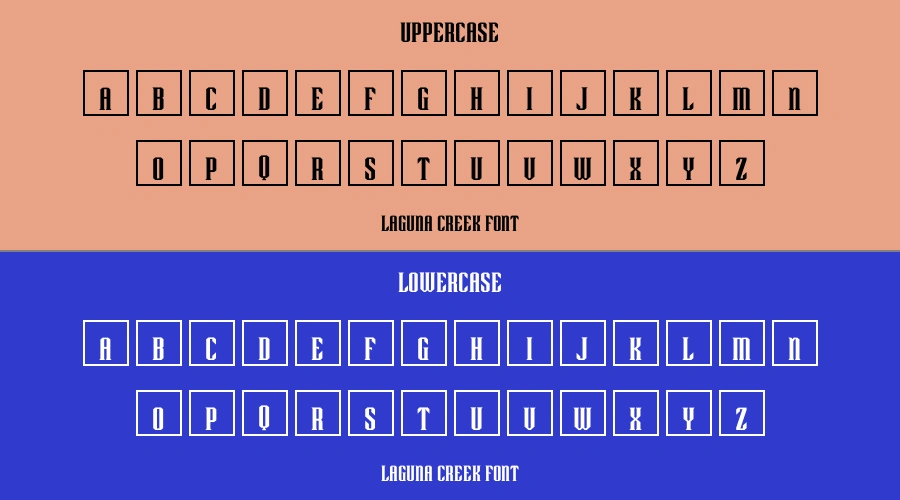
About Laguna Creek Font
Designed with precision, Laguna Creek Font merges architectural precision with textural richness in every character. This versatility makes it particularly effective for book design, where sophistication and creative potential directly impact communication quality. Each letterform demonstrates meticulous craftsmanship.
Technical excellence shines through elements like alternates and word marks, enhancing typographic versatility. In running text settings, Laguna Creek Font proves its worth through superior reproduction fidelity. The thoughtful execution of ear formation and subtle details ensures professional results.